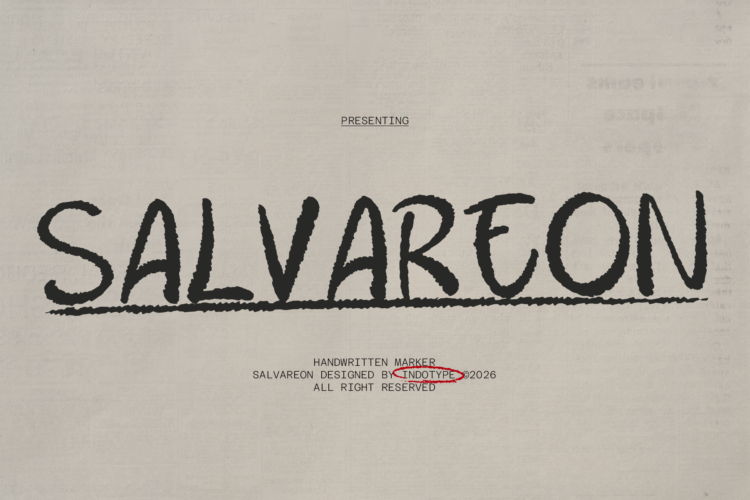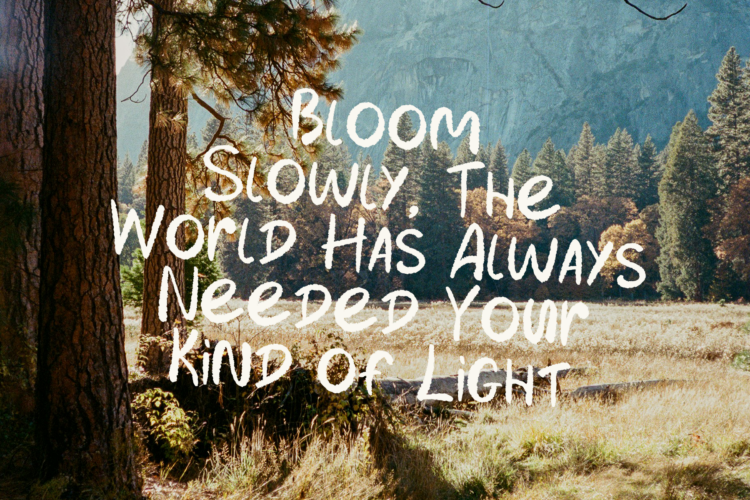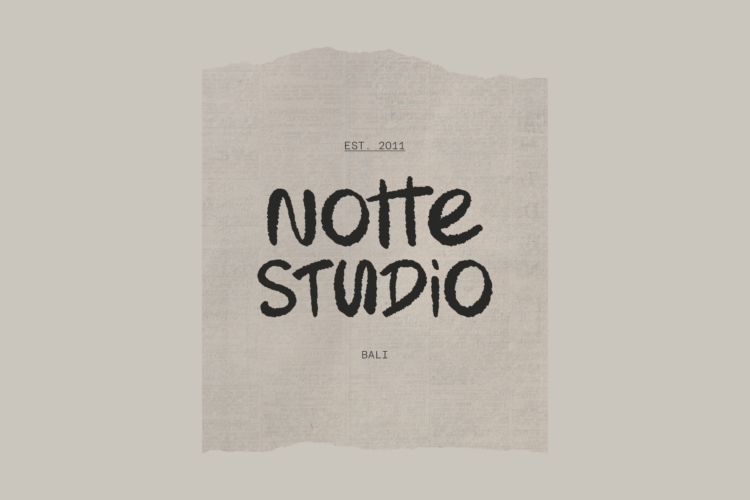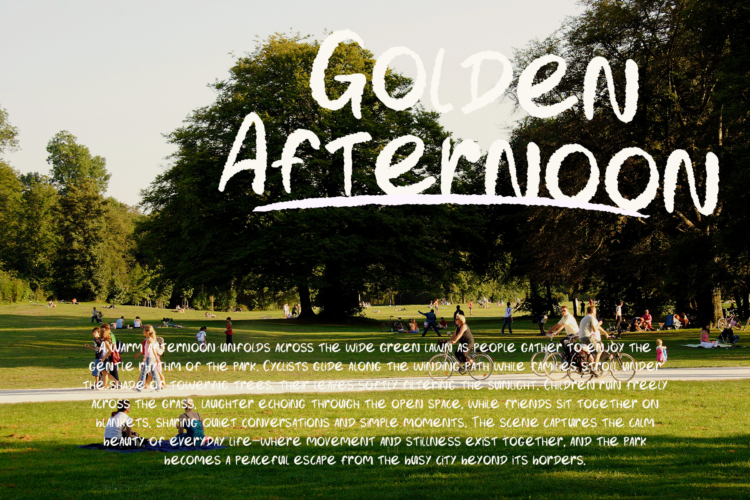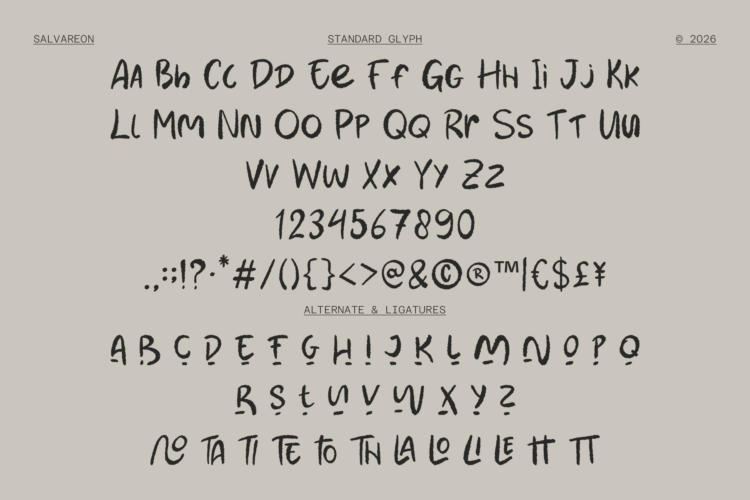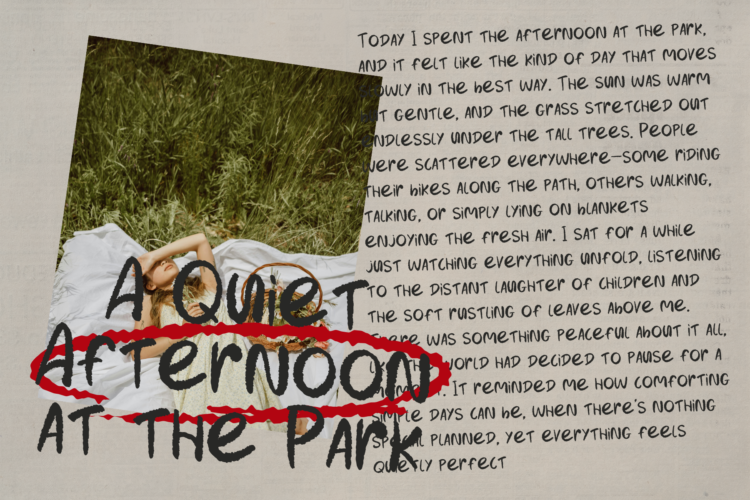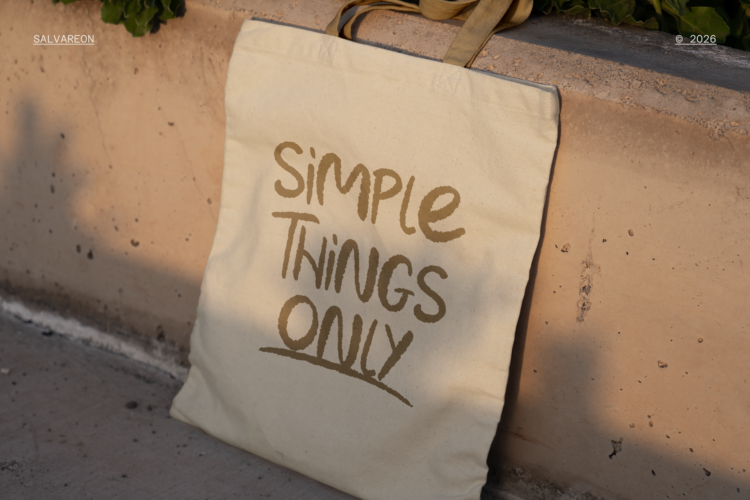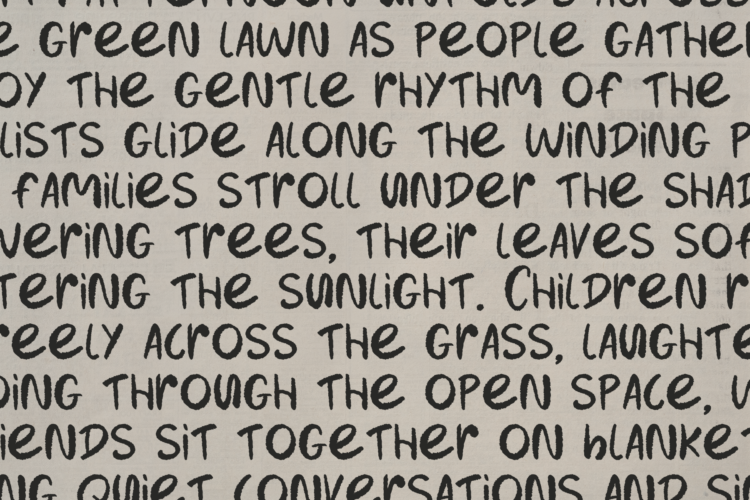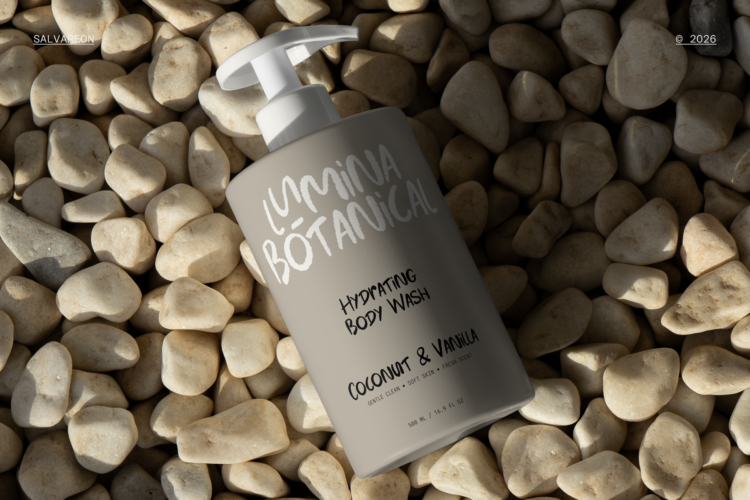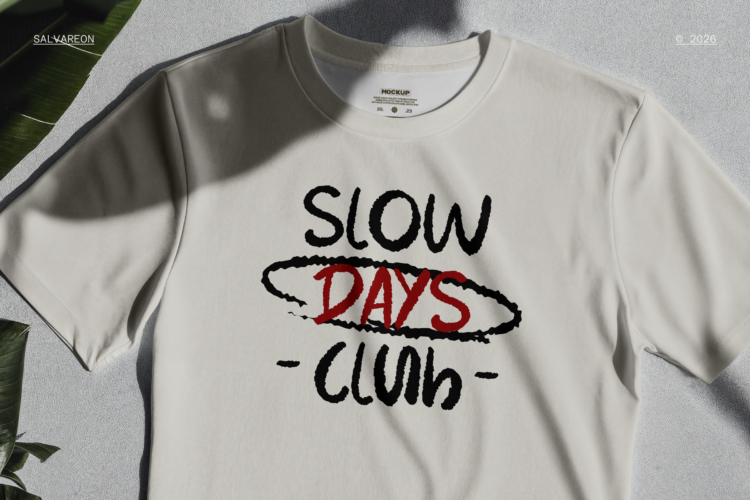
Salvareon is a vibrant and authentic handwritten marker font that captures the raw, unpolished energy of real pen-on-paper expression. With its natural stroke variations, textured edges, and organic flow, this typeface feels genuinely hand-crafted—as if each letter was quickly and confidently drawn with a fresh marker. The slight imperfections and dynamic rhythm give Salvareon an approachable, human quality that digital-perfect fonts simply cannot replicate. Perfect for projects that value authenticity and personal connection, Salvareon brings warmth and character to creative branding, packaging, educational materials, and social media. Its marker-style aesthetic adds a touch of handmade sincerity, making it ideal for designs that need to feel relatable, energetic, and genuinely human.
- Classification:Â Script, Handwritten, Marker, Casual.
- Attributes:Â Authentic, Natural, Textured, Energetic, Approachable, Handcrafted, Organic.
- Thin, Regular, Medium, Semi Bold, Bold Weight Styles and Italic Style on Each Weight
- Including Alternate Glyphs